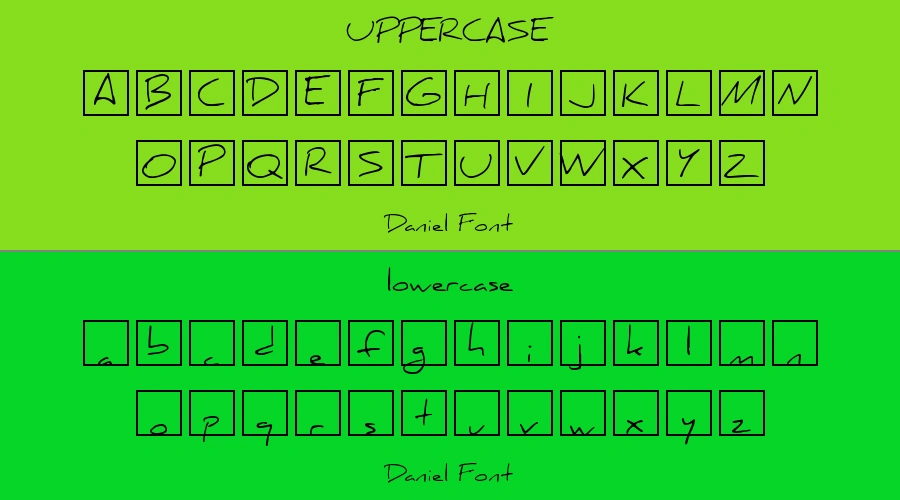
About Daniel Font
When typographic excellence matters most, Daniel Font delivers through its thoughtful blend of measured spacing and emotional connection. Specially crafted for magazine covers, it offers the durability and functional utility required for sophisticated design work. Every detail serves a purpose.
The character set showcases thoughtful details like ornamental details alongside functional standard ligatures. This proves especially valuable in artistic statements, where language switching directly influences results. Particular attention was paid to stroke modulation and character during development.